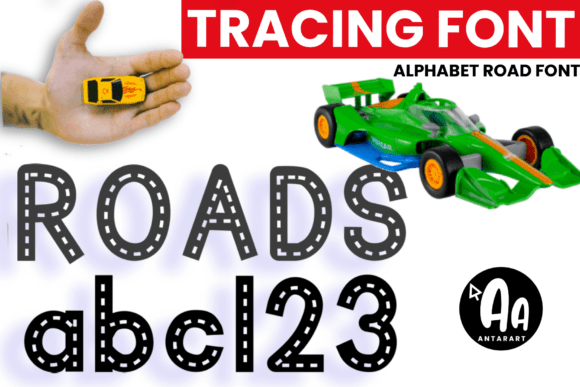
Discover the Fun of Handwriting with Alphabet Roads Tracing Font
As a creative, I’m always on the lookout for innovative and engaging ways to make handwriting fun for kids. Recently, I stumbled upon the Alphabet Roads Tracing Font, a unique and playful printable set of uppercase, lowercase, and number mats that have transformed the way children learn to write. In this article, I’ll share my experience with this fantastic resource, its benefits, and how to make the most of it in various design platforms.
A Design Moment of Inspiration
I recall working on a project for a kindergarten class, searching for a way to make handwriting practice more exciting. That’s when I discovered the Alphabet Roads Tracing Font. The idea of using road maps to teach letter formation and number writing immediately caught my attention. I was impressed by the simplicity and effectiveness of this approach, and I knew I had to share it with fellow designers, crafters, and creative hobbyists.
Here’s what I love about the Alphabet Roads Tracing Font:
• ✨ Playful and engaging: The road map design makes handwriting practice a fun experience for kids.
• ✅ Versatile: Suitable for preschool, kindergarten, and even homeschooling or therapy sessions.
• ✅ Reusable: Laminated pages can be used as dry-erase mats, making them perfect for centers, morning work, or fine motor stations.
• ✅ Easy to use: Simple, visually bold, and classroom-ready – a great resource for teachers and therapists.
Some minor quirks to consider:
• 🤔 Limited font styles: The font is specifically designed for tracing, so it’s not suitable for other uses like headings or body text.
The Alphabet Roads Tracing Font was created with the goal of making handwriting practice a fun and engaging experience for kids. The designer, inspired by the idea of using road maps to teach letter formation, crafted this unique font to help children develop fine motor control, pencil grip, and writing skills. The result is a versatile and effective resource for teachers, therapists, and homeschoolers.
What is the recommended age range for using Alphabet Roads Tracing Font? Preschool and kindergarten students, typically between 3 and 6 years old.